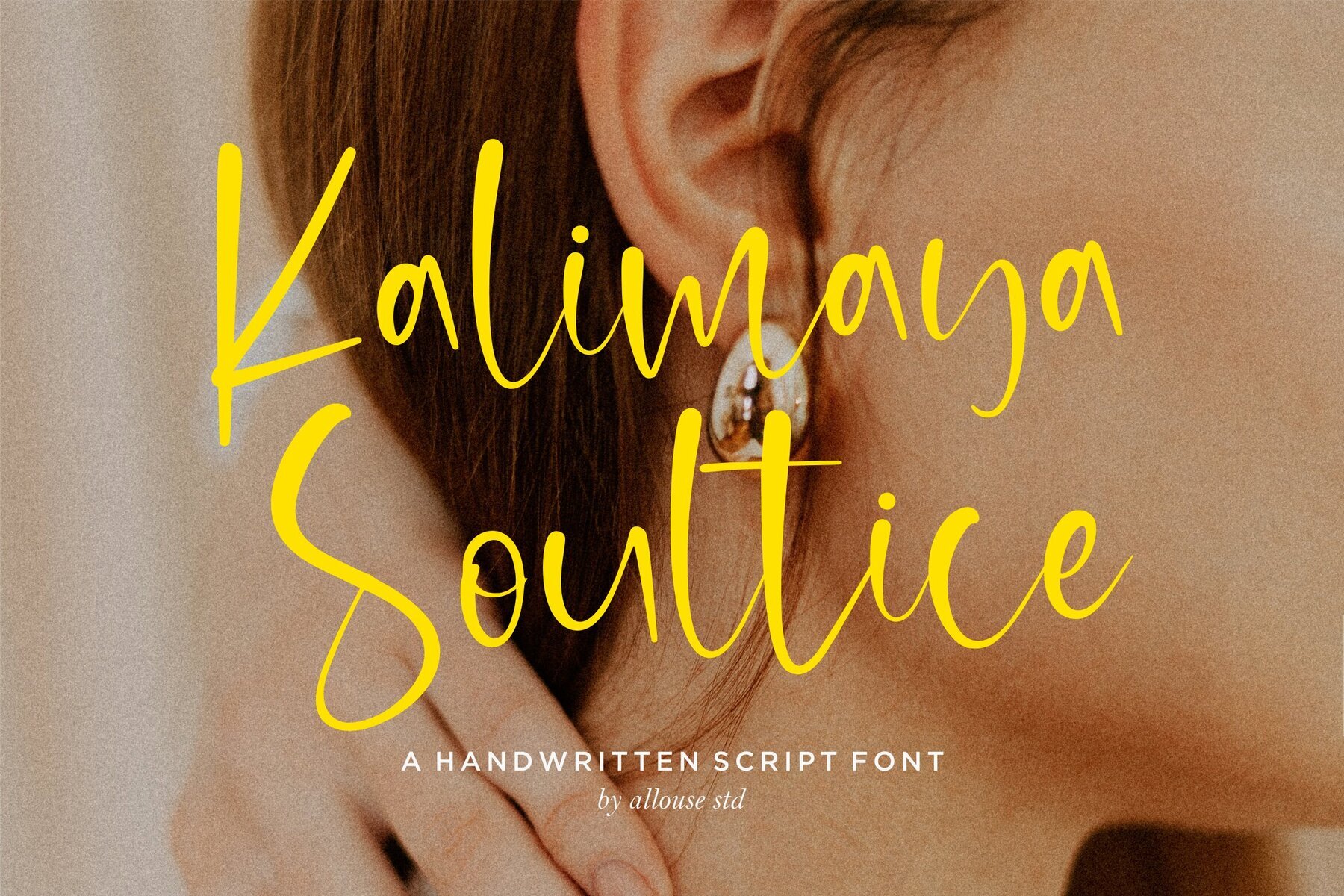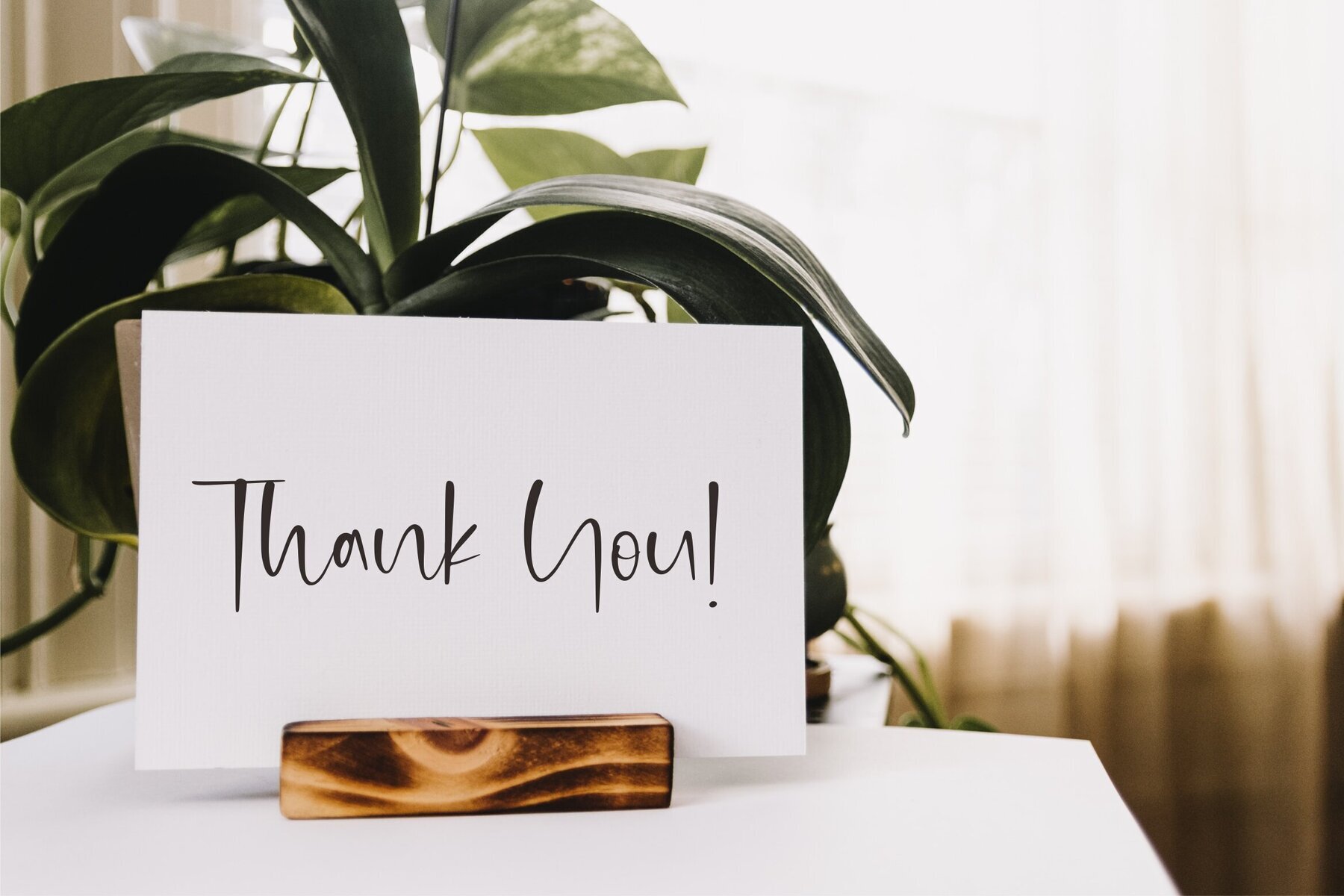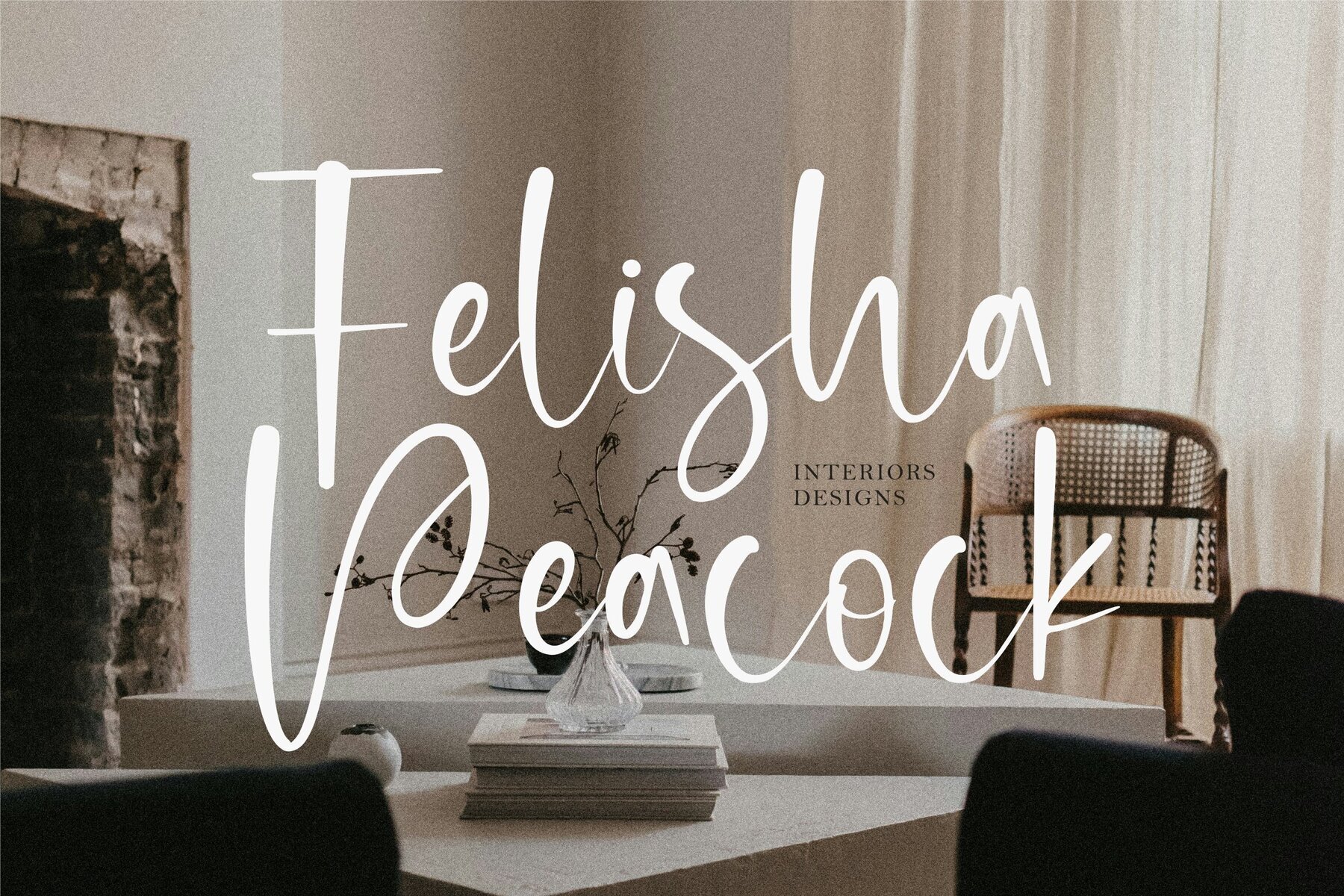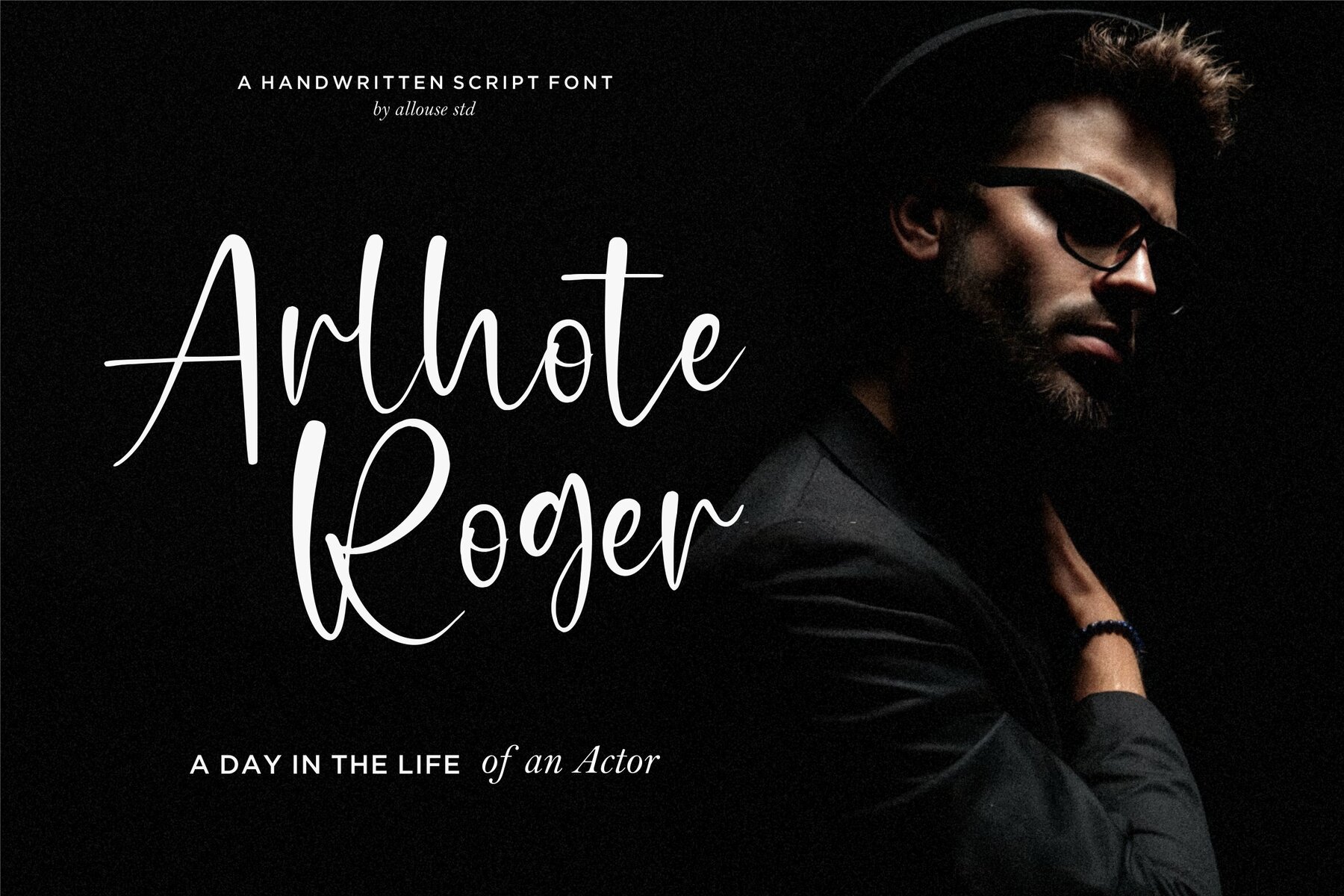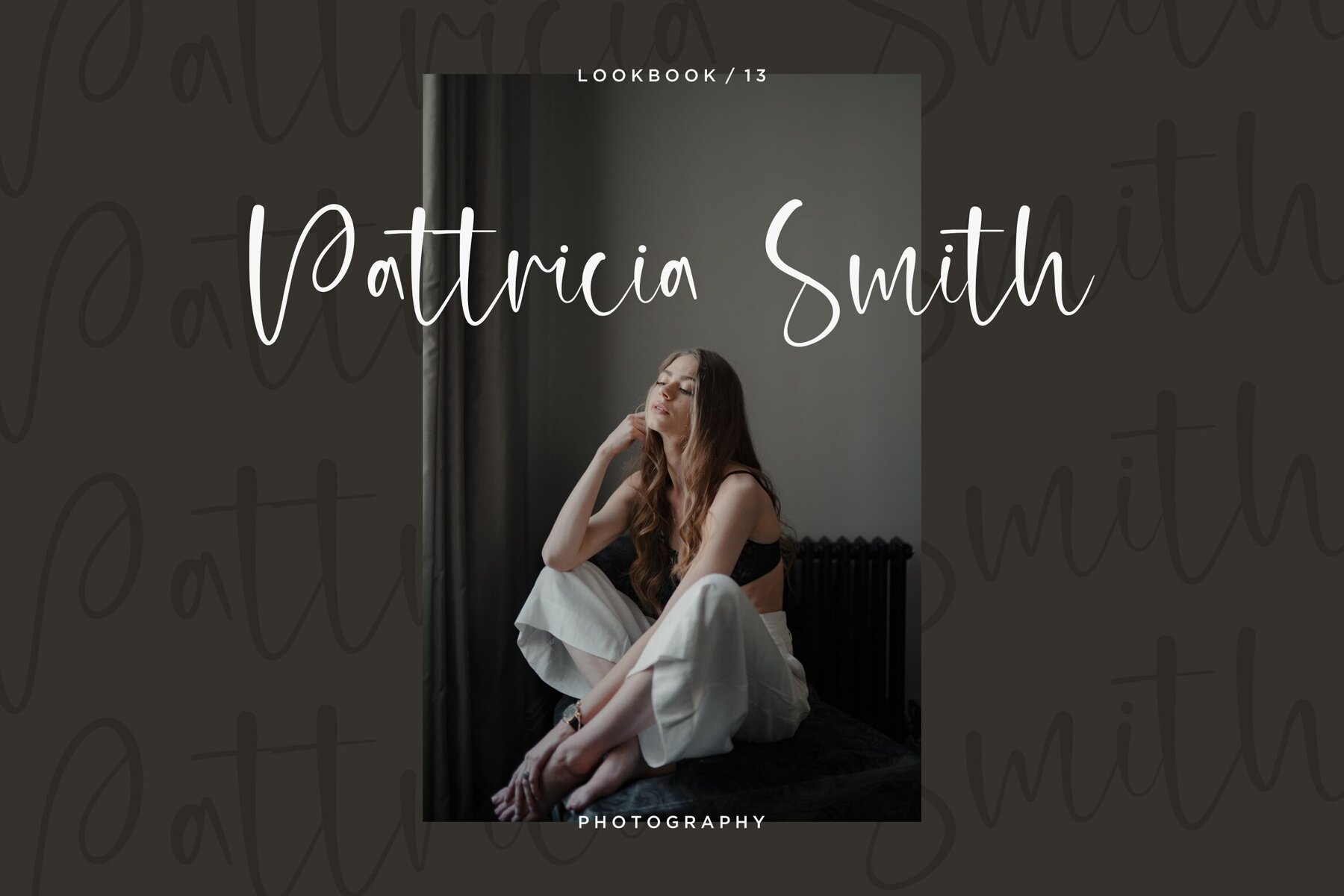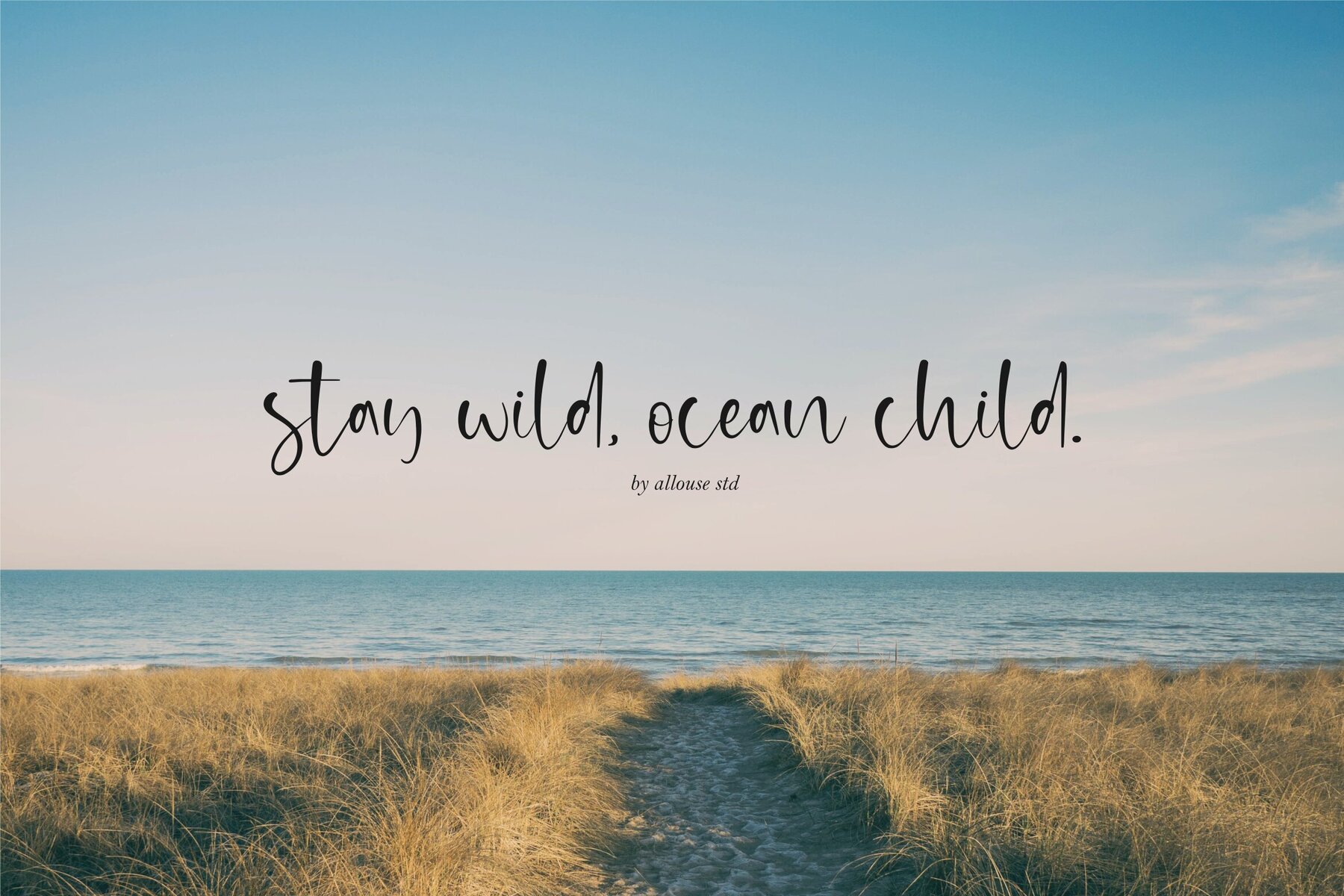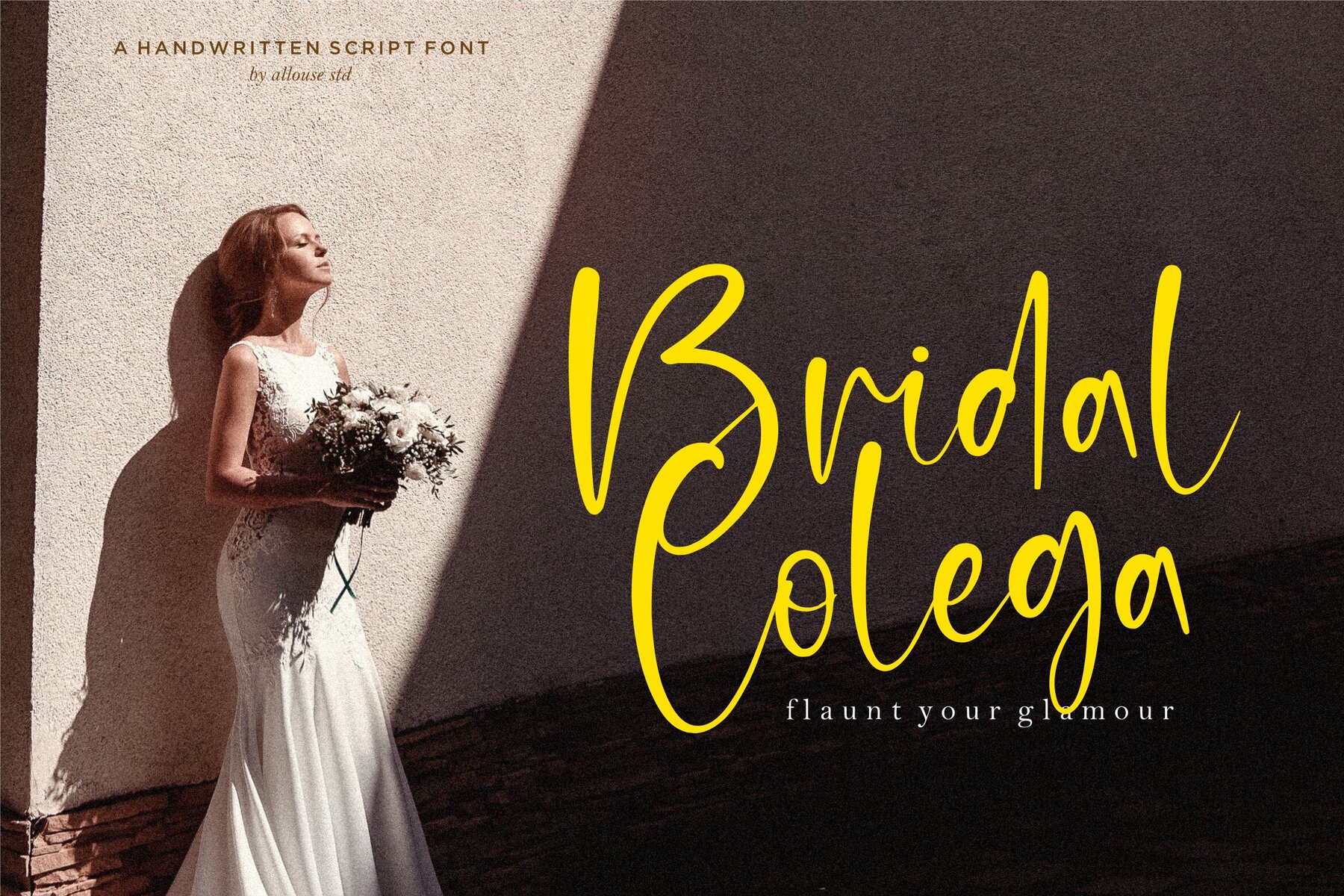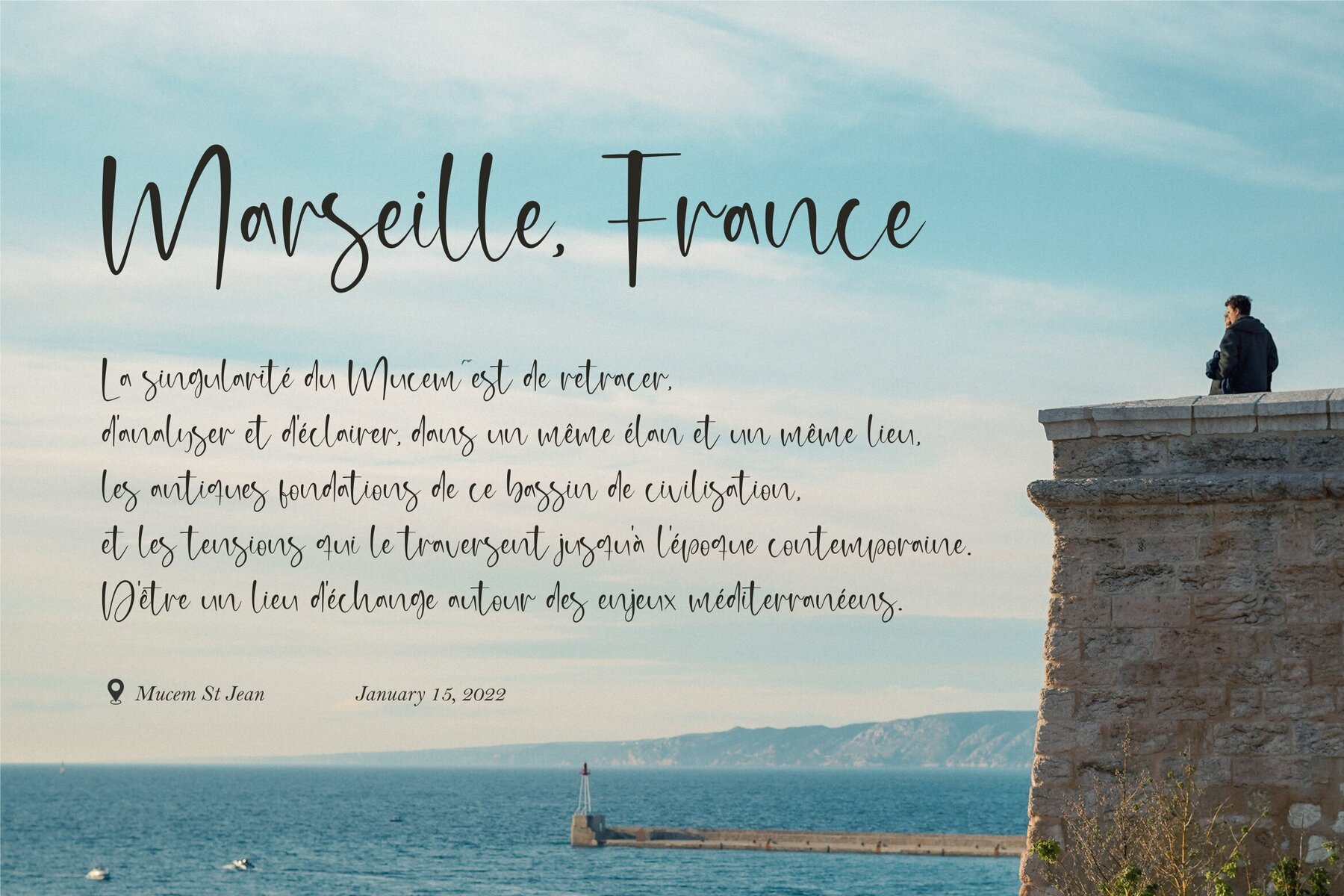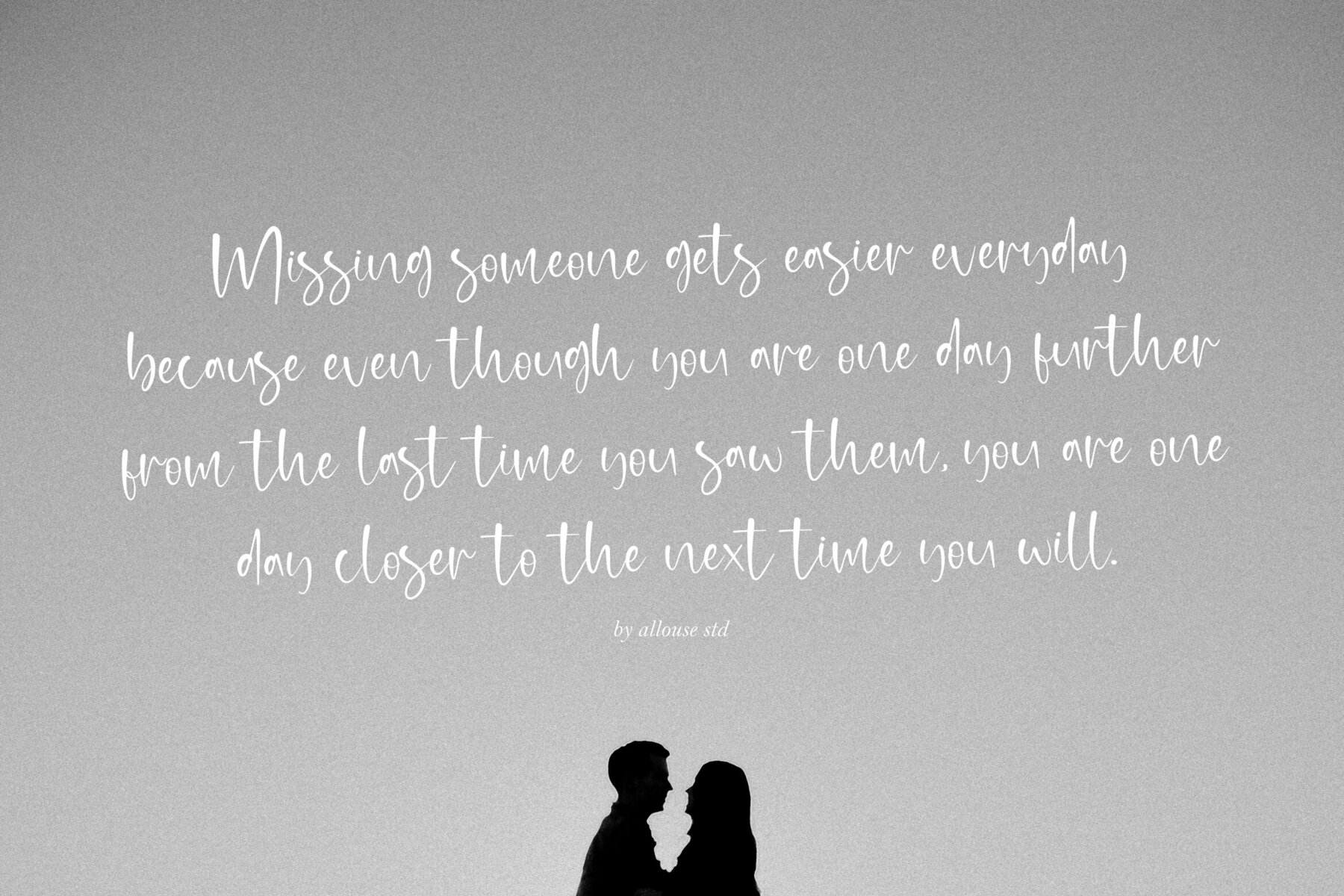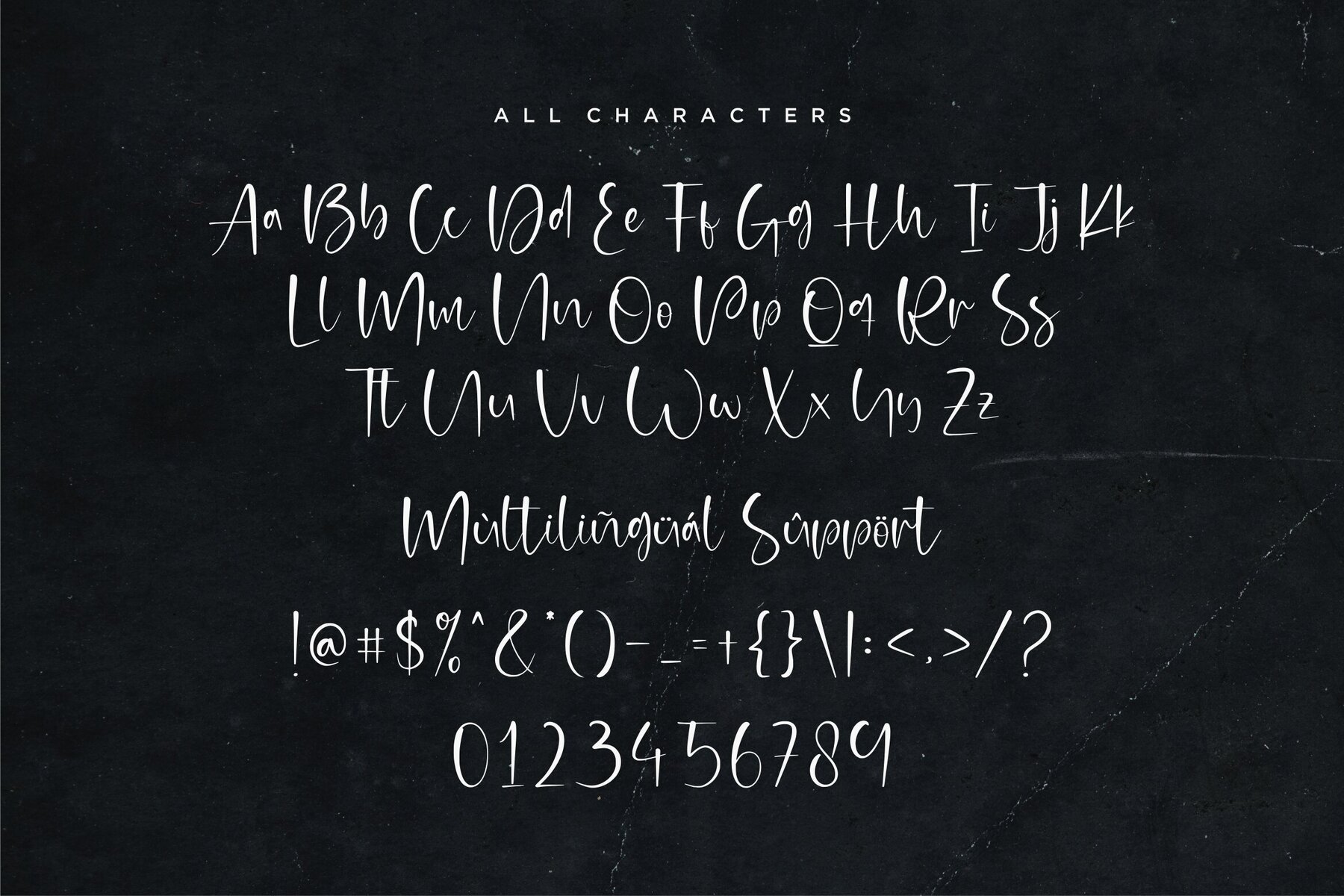
Kalimaya Soultice Font
Kalimaya Soultice
Kalimaya Soultice offers a beautifully crafted handwritten script that brings elegance and personality to any project. Ideal for product packaging, branding initiatives, magazines, and social media, this font also excels in wedding designs, delivering charm and a personal touch to visual narratives.Kalimaya Soultice: A Handwritten Script Font
Features of Kalimaya Soultice